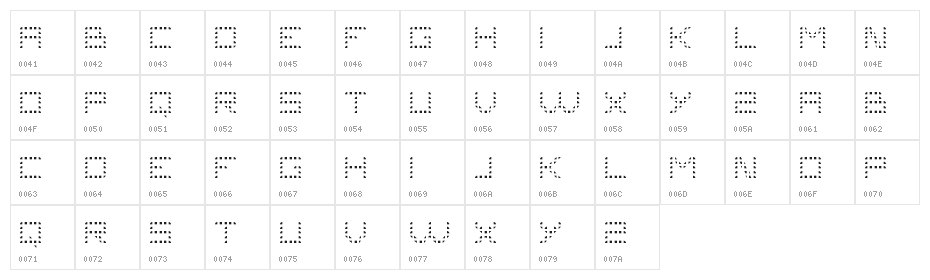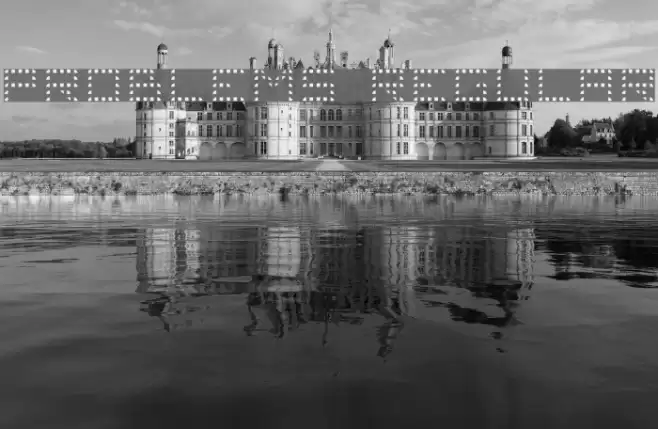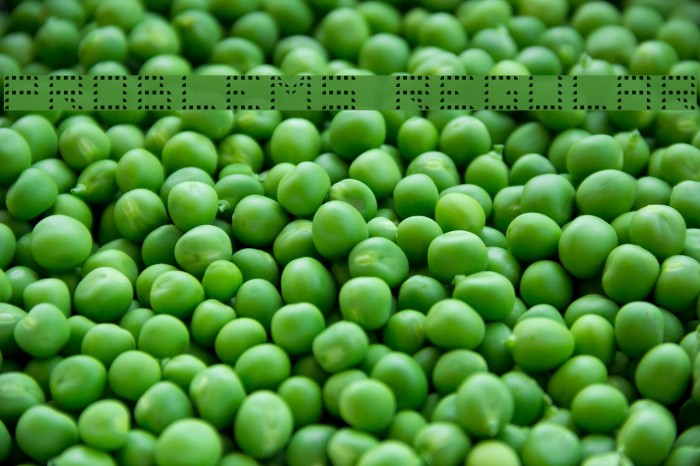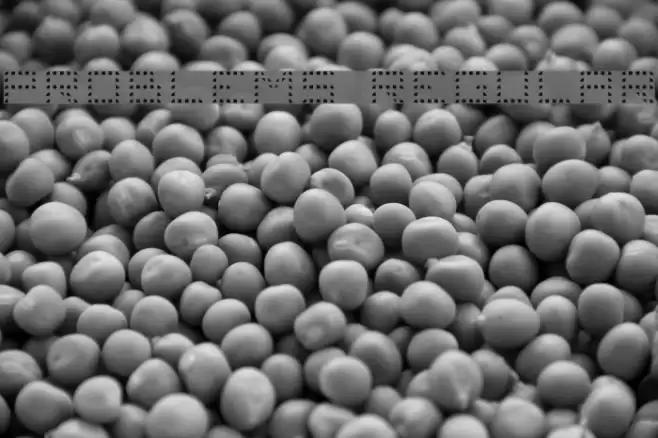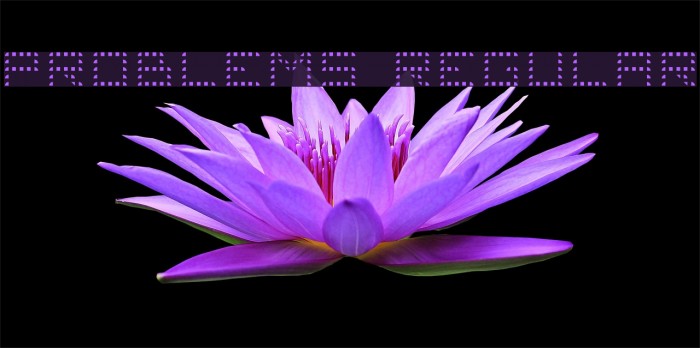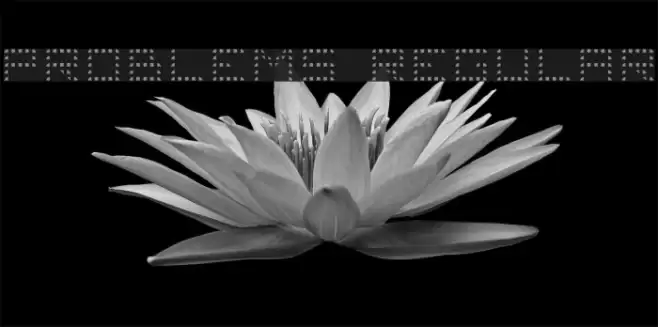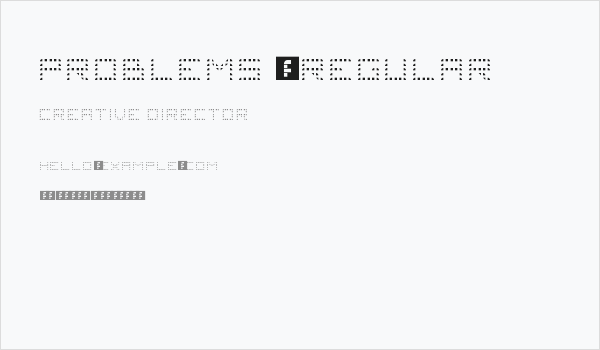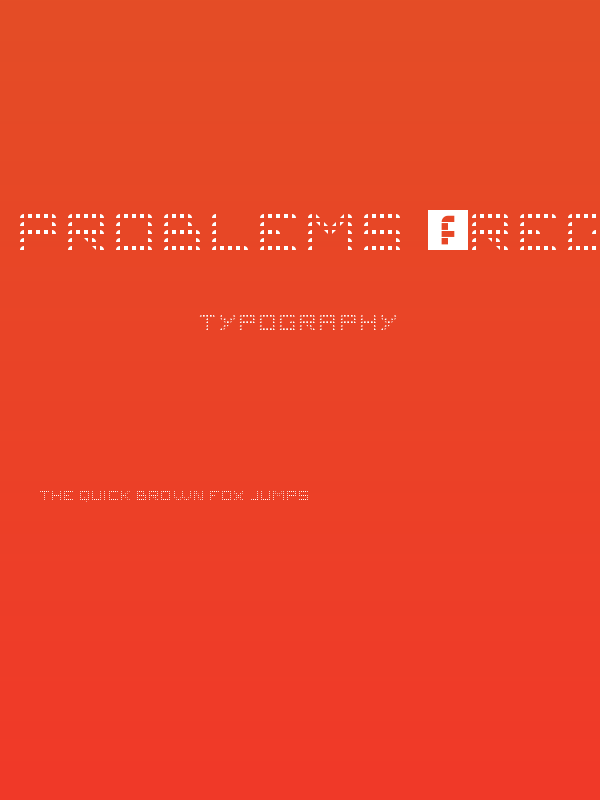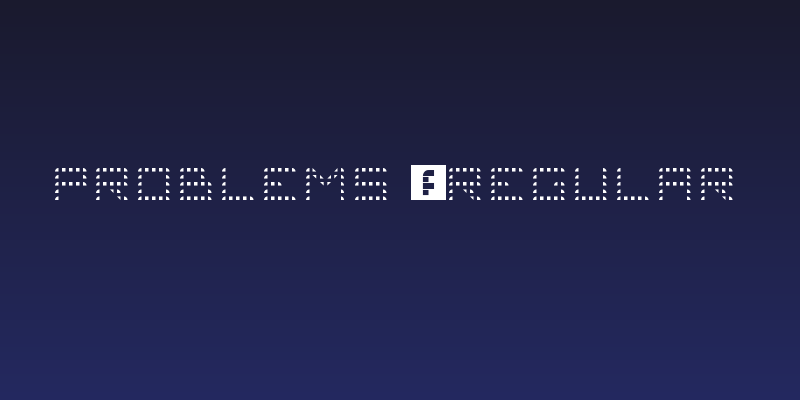
Problems 4 Regular Font
Problems 4 Regular Description
This font features a unique dotted pattern that forms each character, creating a distinct and modern appearance. The letters are constructed using evenly spaced dots, giving it a digital or pixelated feel. The uppercase and lowercase letters maintain a consistent style, with clear geometric shapes that are easy to read. Numbers and special characters follow the same dotted design, ensuring uniformity across all glyphs. This font's design is both innovative and playful, making it suitable for creative projects that require a contemporary and eye-catching look.
| Proposed Projects | Ideal for digital art, tech-themed designs, posters, and creative branding. |